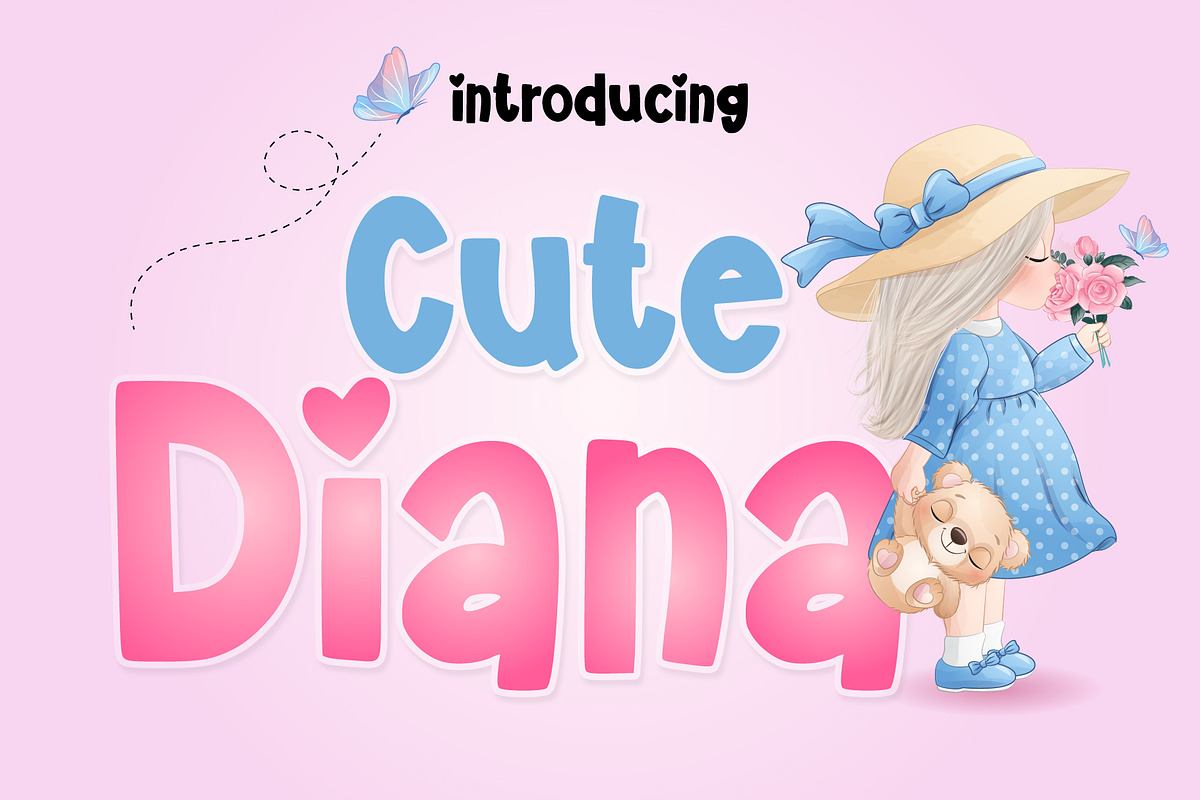
Please note, to use this font for commercial purposes, you must purchase the full version. Cute Diana is a playful and charming font designed to bring a friendly and fun vibe to your designs. With its rounded, whimsical letterforms, this font is perfect for logos, invitations, children's projects, and creative branding. Whether you're working on a fun event, a kids' brand, or a whimsical design, Cute Diana adds personality and cheer to your work. Test it out and enjoy free download access for personal use. Experience the adorable style of Cute Diana Fonts Free Download before purchasing the commercial license. Add a joyful, cute touch to your designs with Cute Diana.